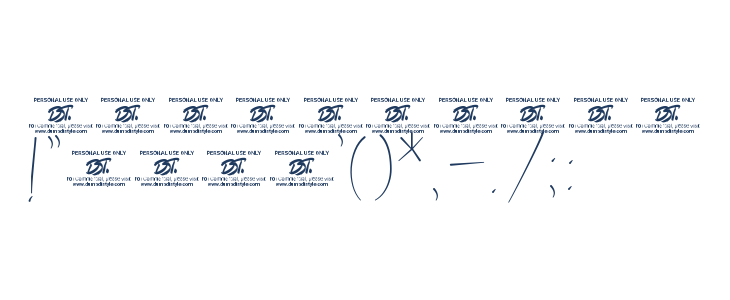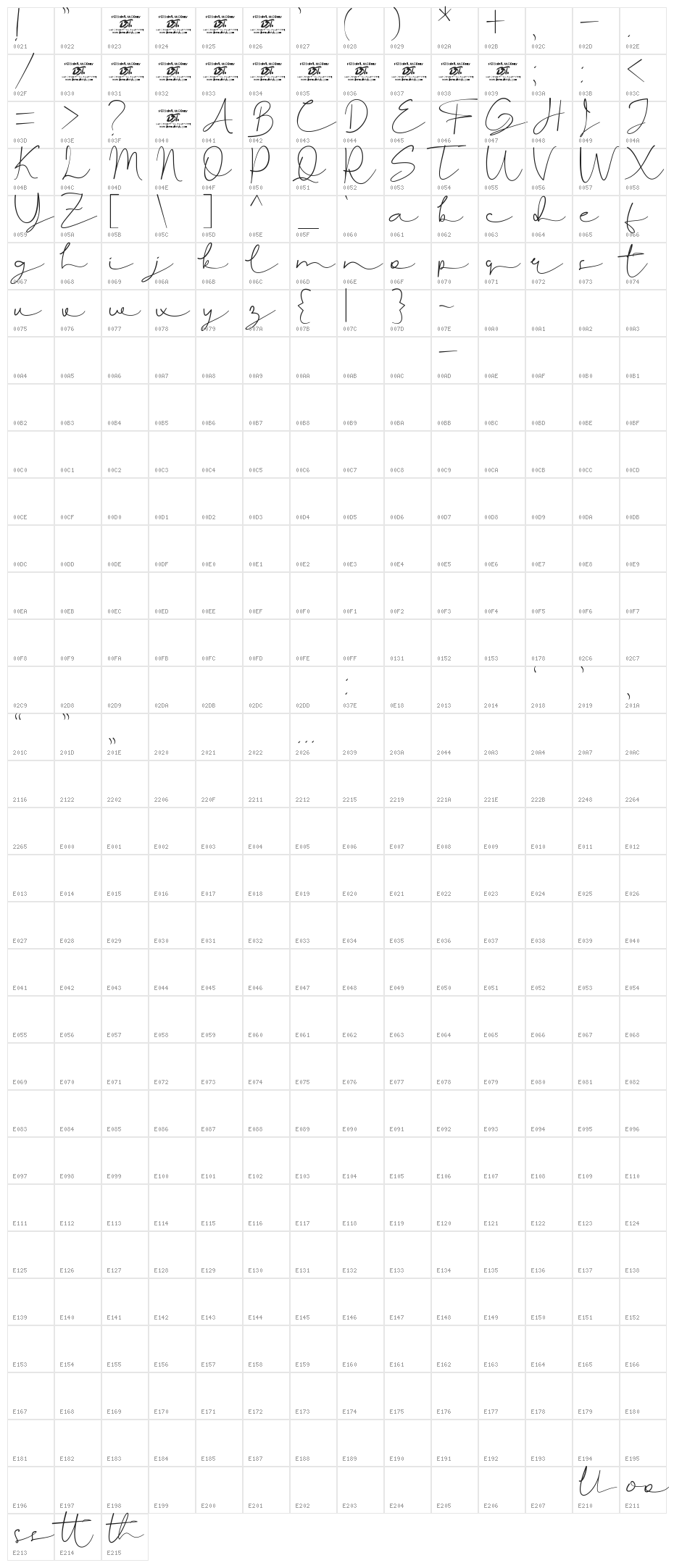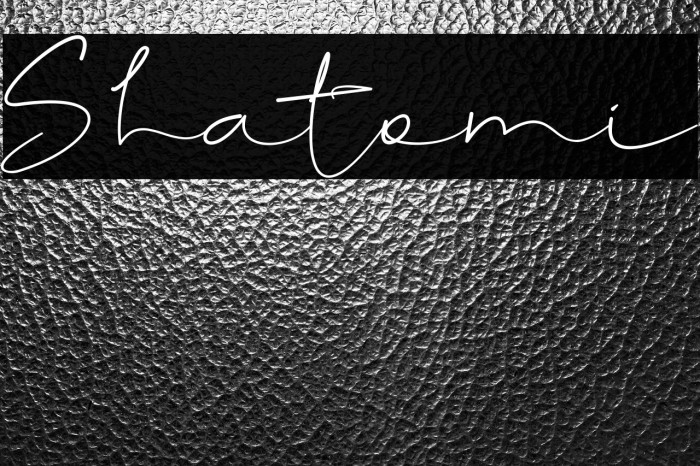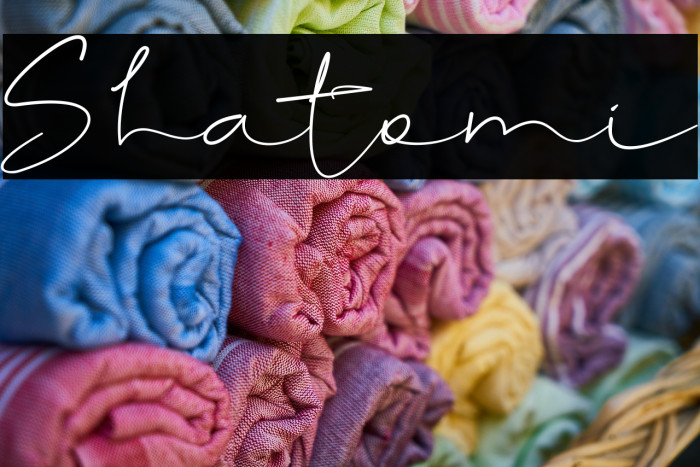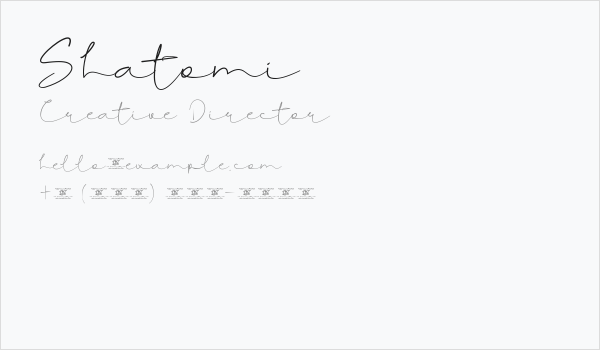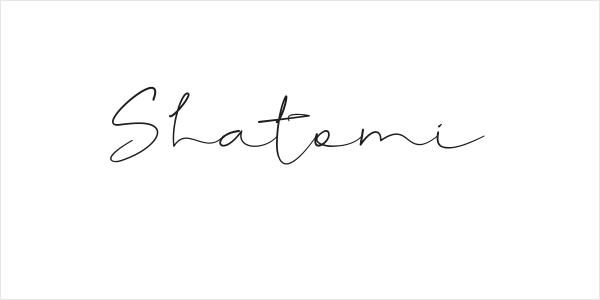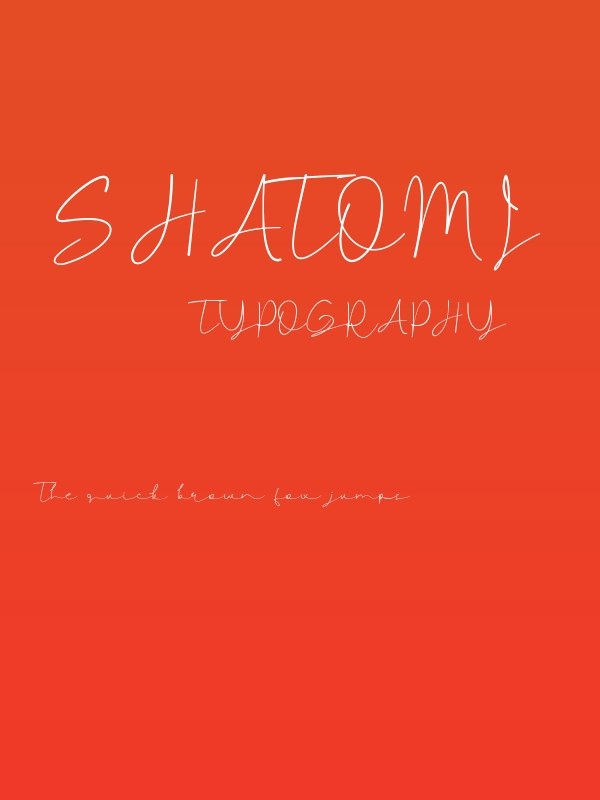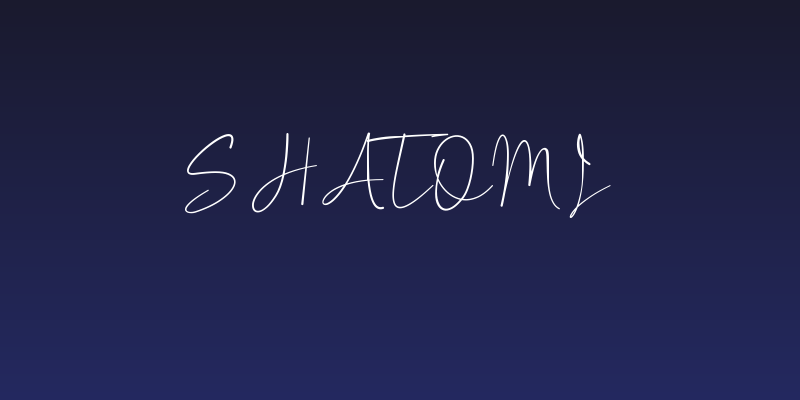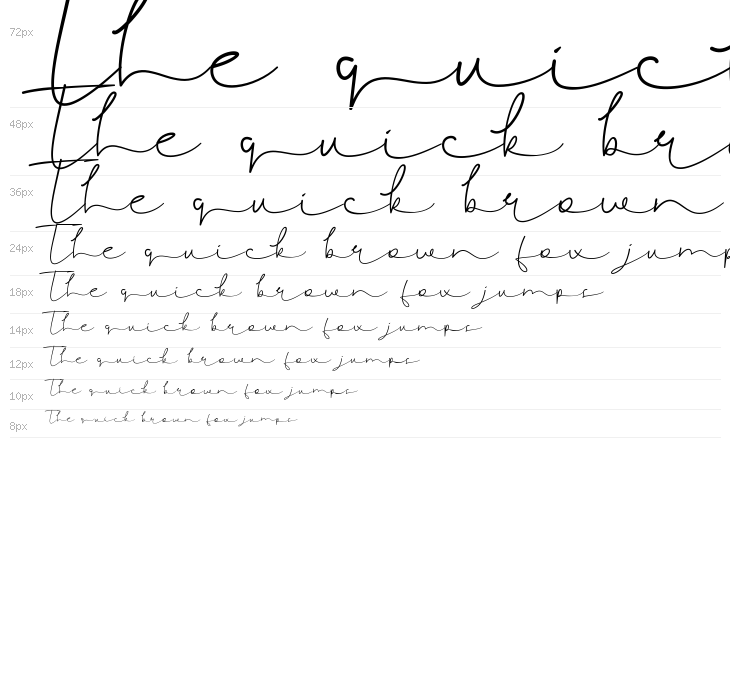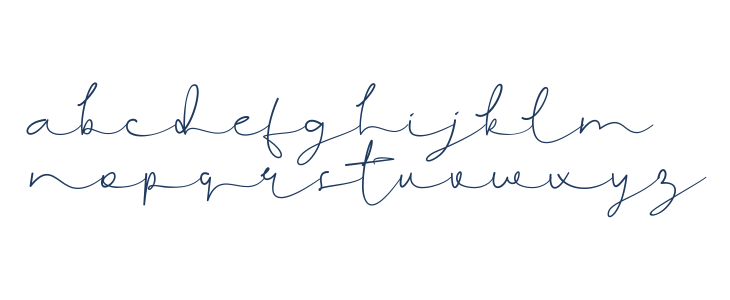
Shatomi Font
Shatomi Description
This font features a delicate and flowing script style, characterized by its elegant and fluid letterforms. The uppercase letters are tall and slightly slanted, with graceful curves and loops that give a sense of movement. The lowercase letters maintain a consistent style, with smooth connections between characters, enhancing the cursive appearance. The font's thin strokes and minimal contrast contribute to its light and airy feel, making it suitable for designs that require a touch of sophistication and elegance. The special characters and numbers are designed to match the overall style, ensuring a cohesive look across all text elements.
| Use Case | Logos, Invitations, Stationery |
| Proposed Projects | Ideal for wedding invitations, elegant branding, personal stationery, and romantic quotes. |